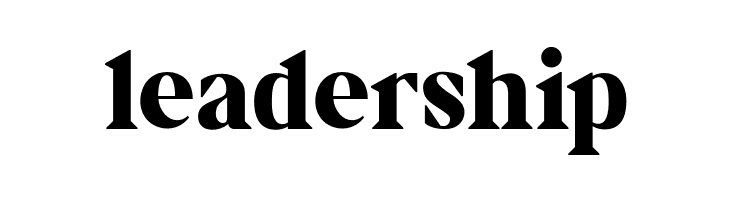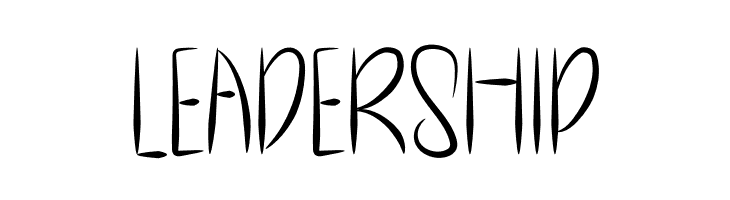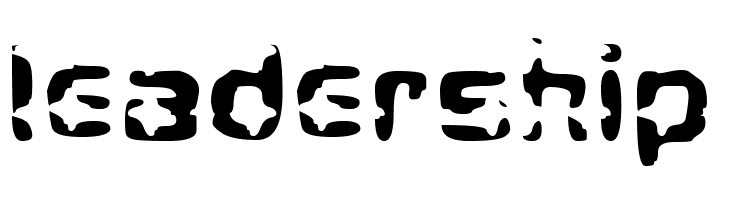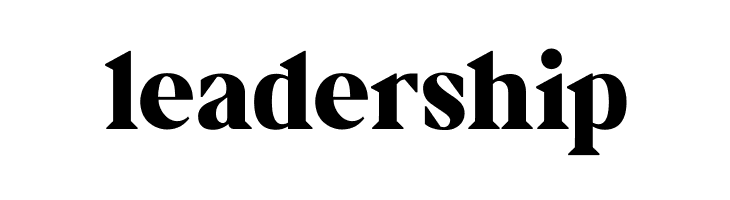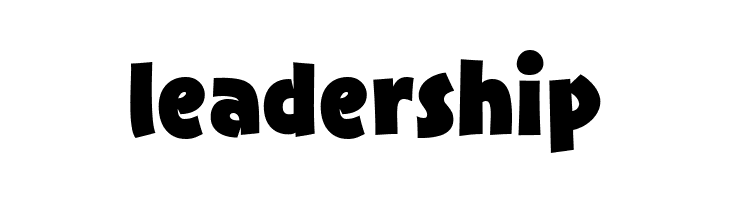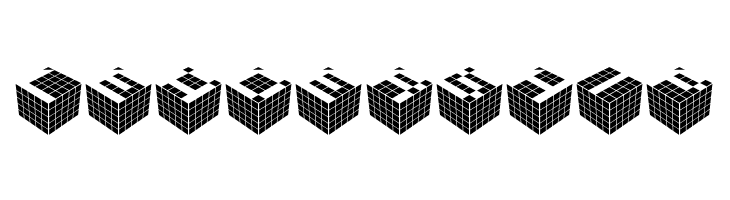
• Crushwear
A bold, artistic font with a hand-drawn, whimsical style.
• CrushyBlackDemo
A bold, playful font with exaggerated curves and a whimsical style.
• Crying Star
A playful, artistic font with fluid, organic shapes and a modern, abstract feel.
• Cryspo Shoop
An artistic, high-contrast font with elongated, narrow characters and a hand-drawn feel.
• Crystal Angles
A playful, casual handwritten font with smooth, flowing lines.
• Crystal Universe Oblique
A bold, playful font with star motifs and rounded characters.
• Crystal Universe Regular
A bold, playful font with star motifs in each character.
• Crystal Universe Regular
A bold, playful font with star-shaped cutouts in each character.
• Crystasea
A bold serif font with strong strokes and a modern twist.
• Crystasea
A bold, serif font with strong, authoritative strokes and classic elegance.
A futuristic, geometric font with circular shapes and consistent stroke width.
• Cube12bit
A pixelated, blocky font with a retro digital aesthetic.
• Cuddle Bunny
A bold, playful handwritten font with rounded strokes and a whimsical style.
• Cuddly Kid Handwriting
A playful, bold handwritten font with a whimsical charm.
• Cufis Decor
A decorative font with bold characters in patterned flag-like banners.
• Cully
A modern, geometric font with sharp angles and a futuristic style.
• Cully
A modern, geometric font with a futuristic and precise design.
• Cully Bold
A bold, geometric font with a futuristic and modern aesthetic.
• Cully Demo
A modern, geometric font with sharp, angular lines and a futuristic style.
• Cully Demo Bold
A bold, geometric font with a modern, futuristic style and strong, angular lines.